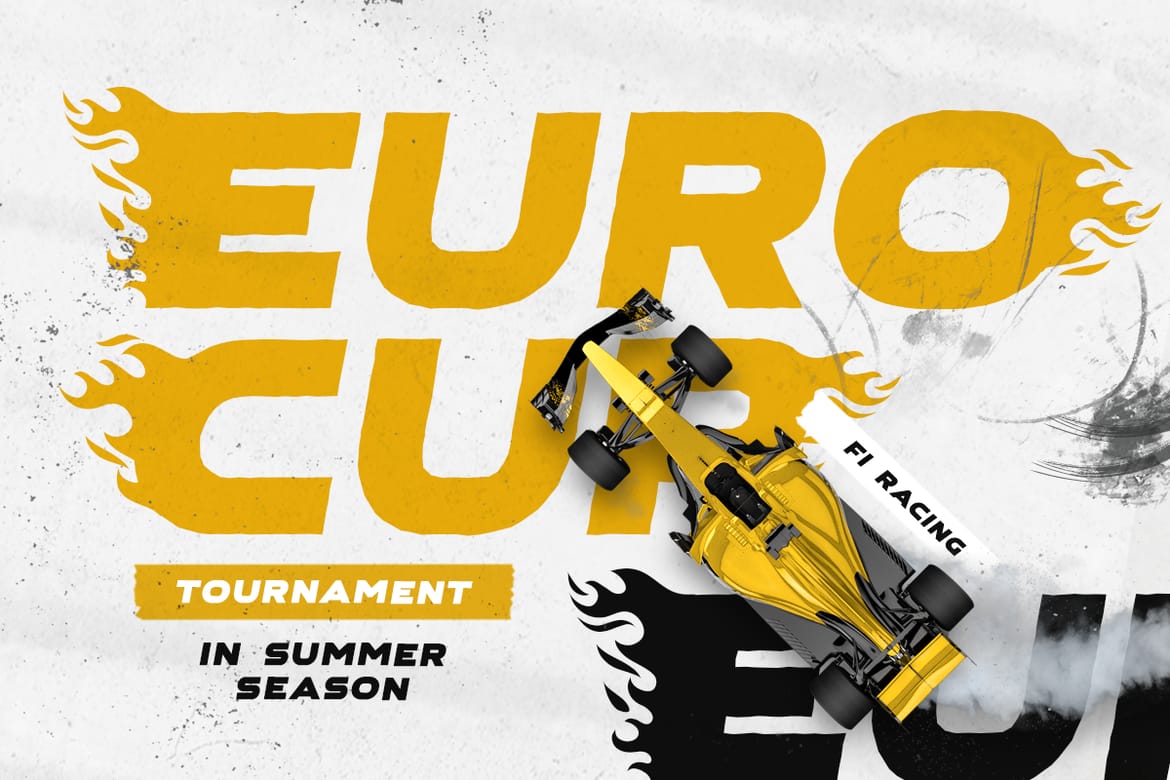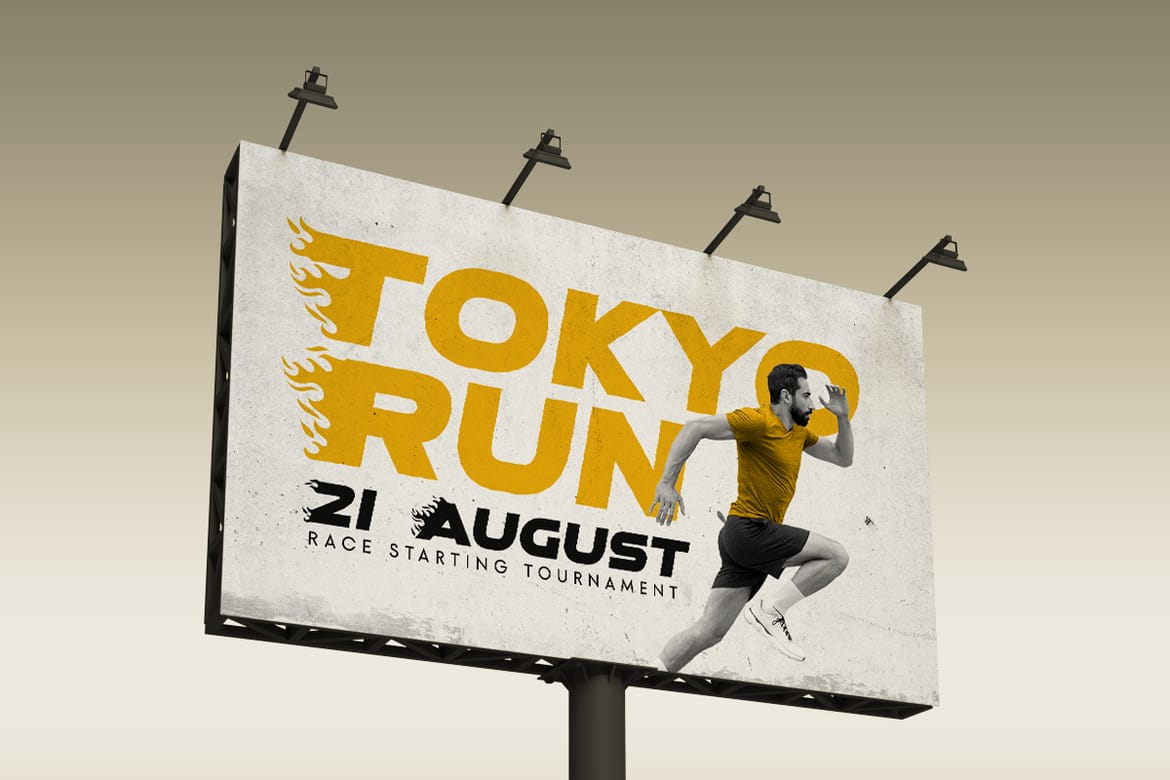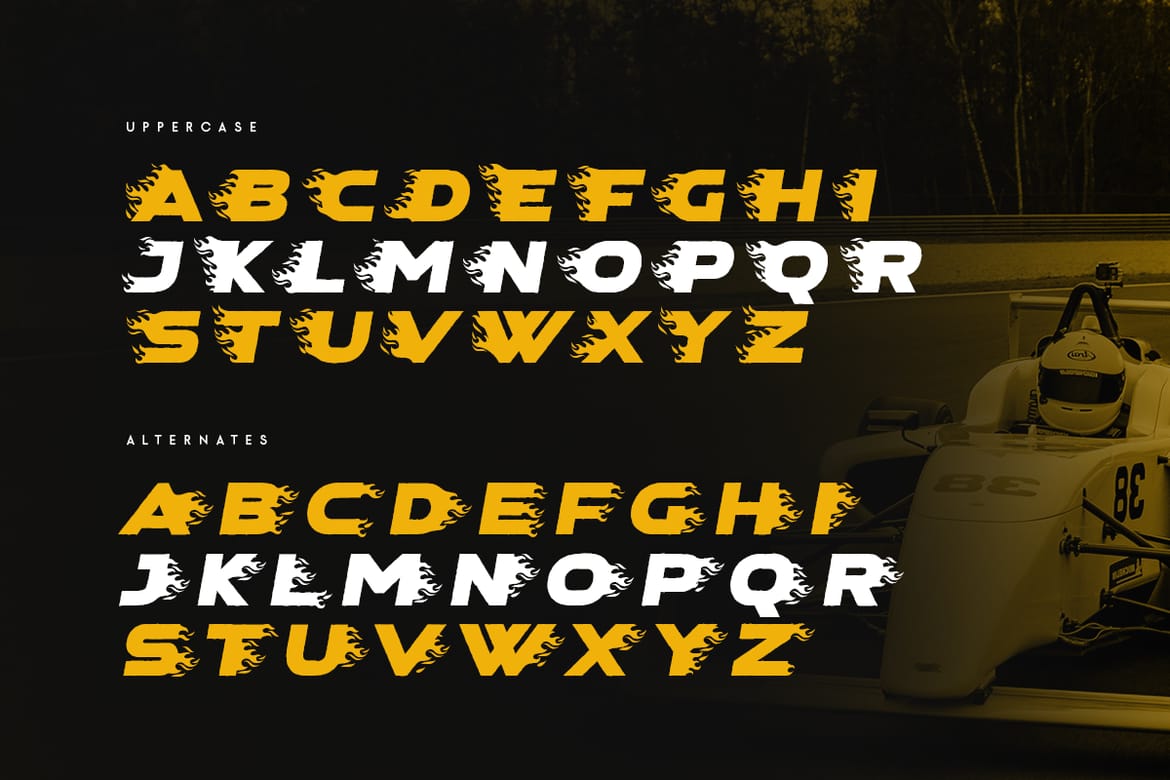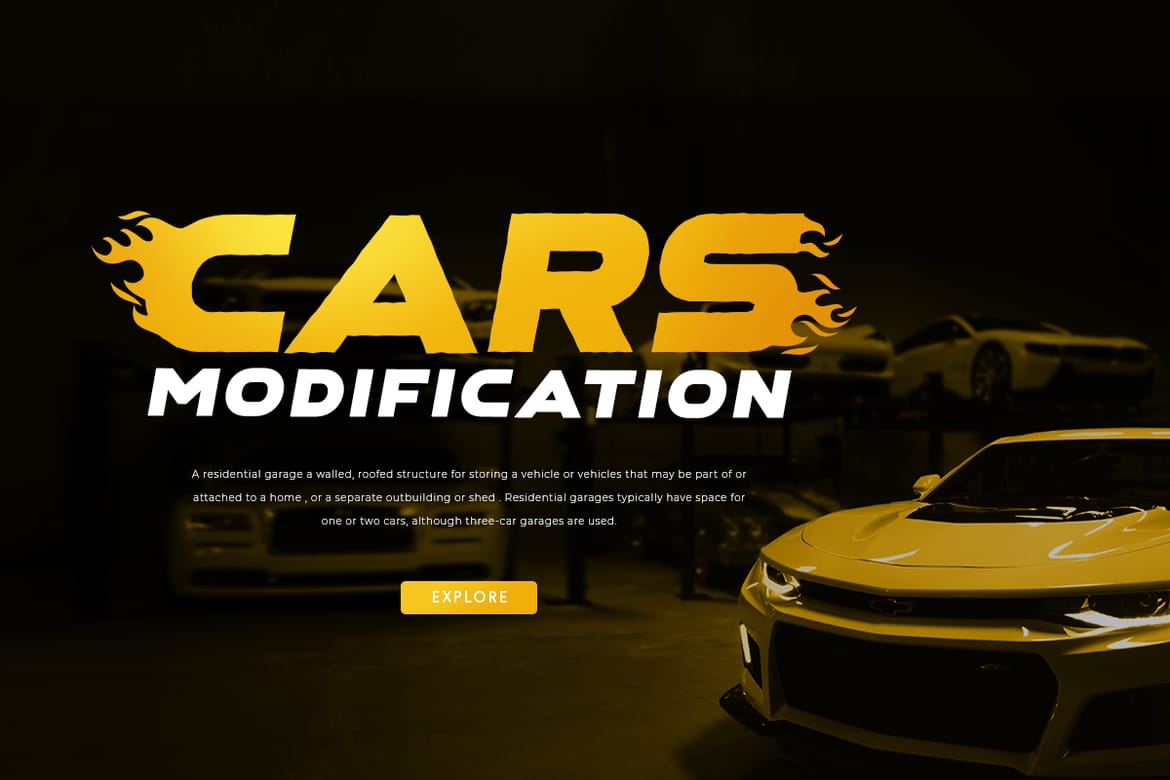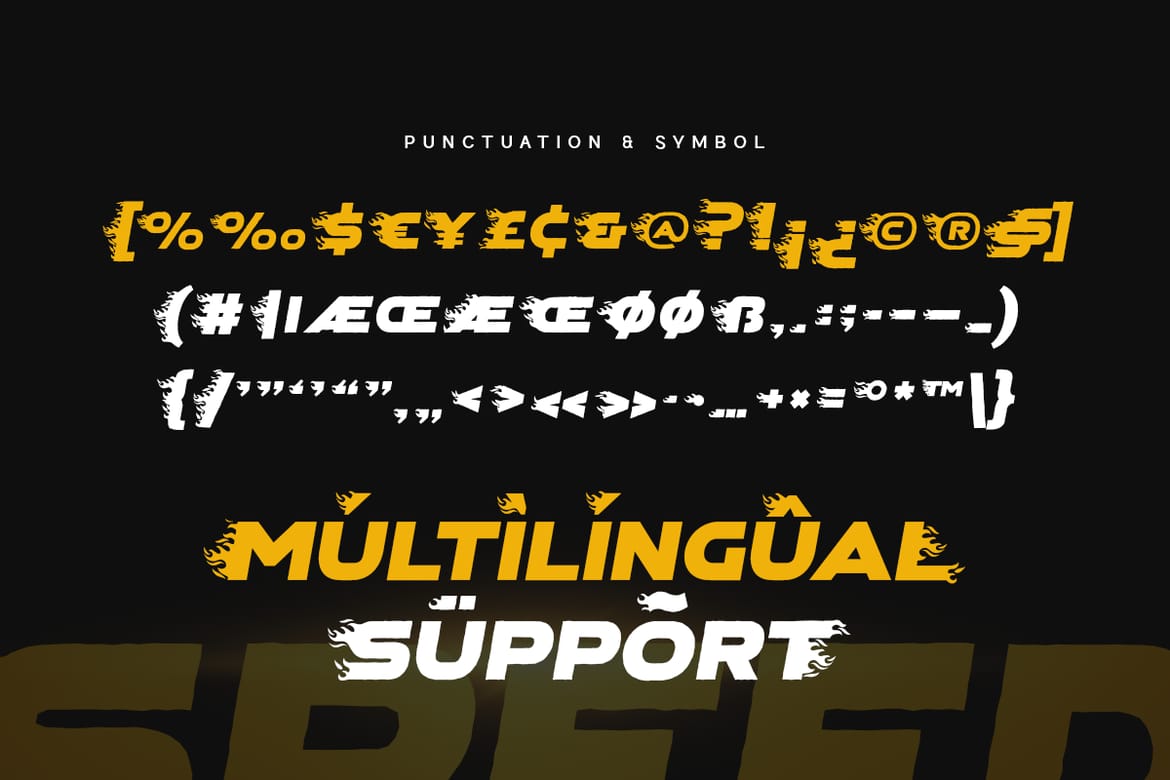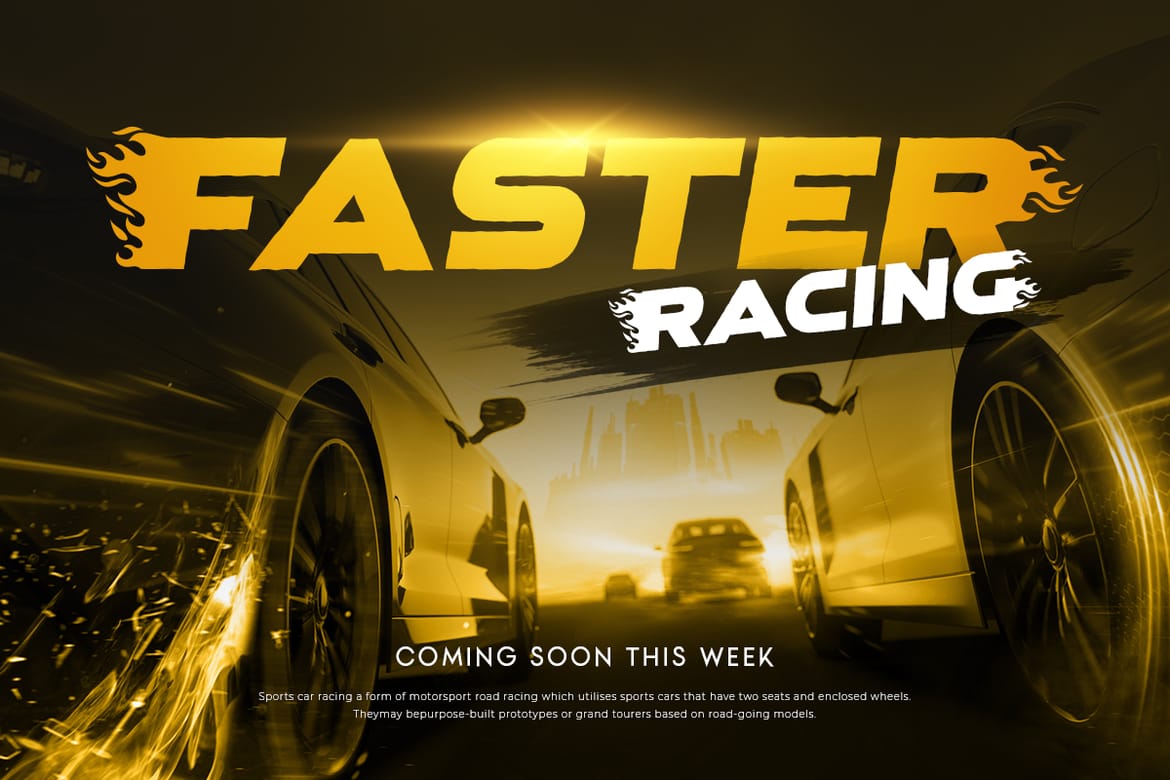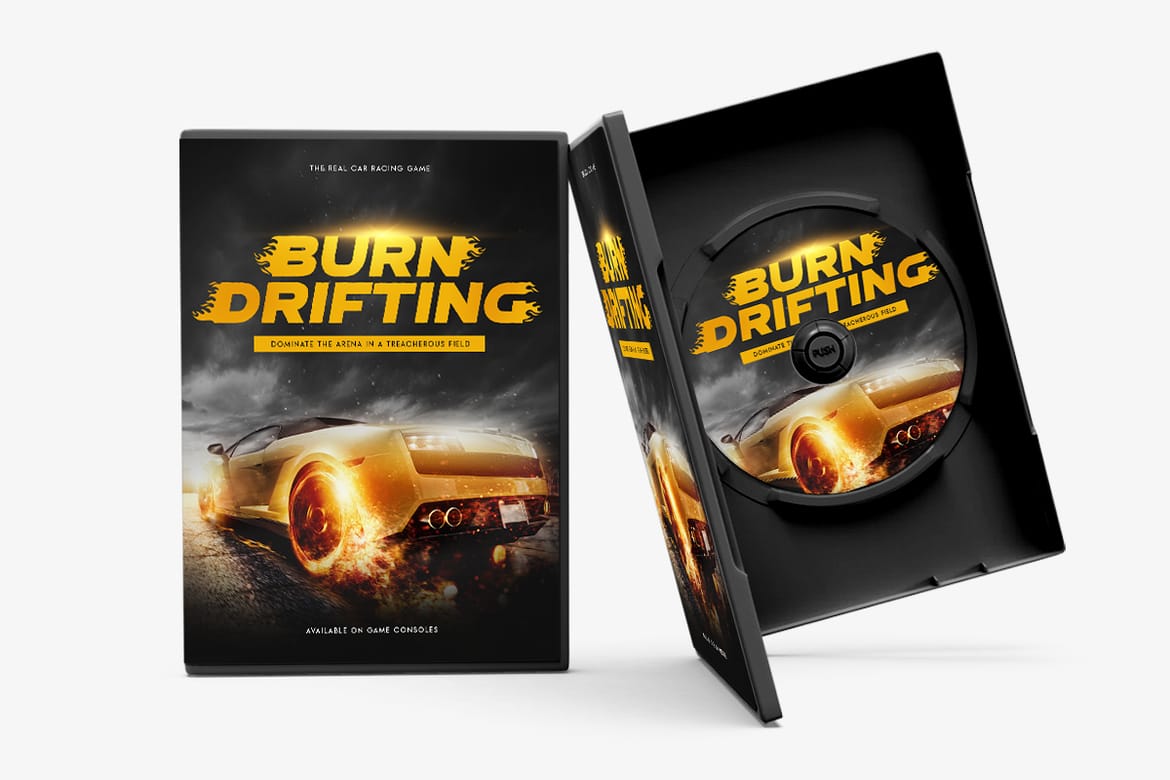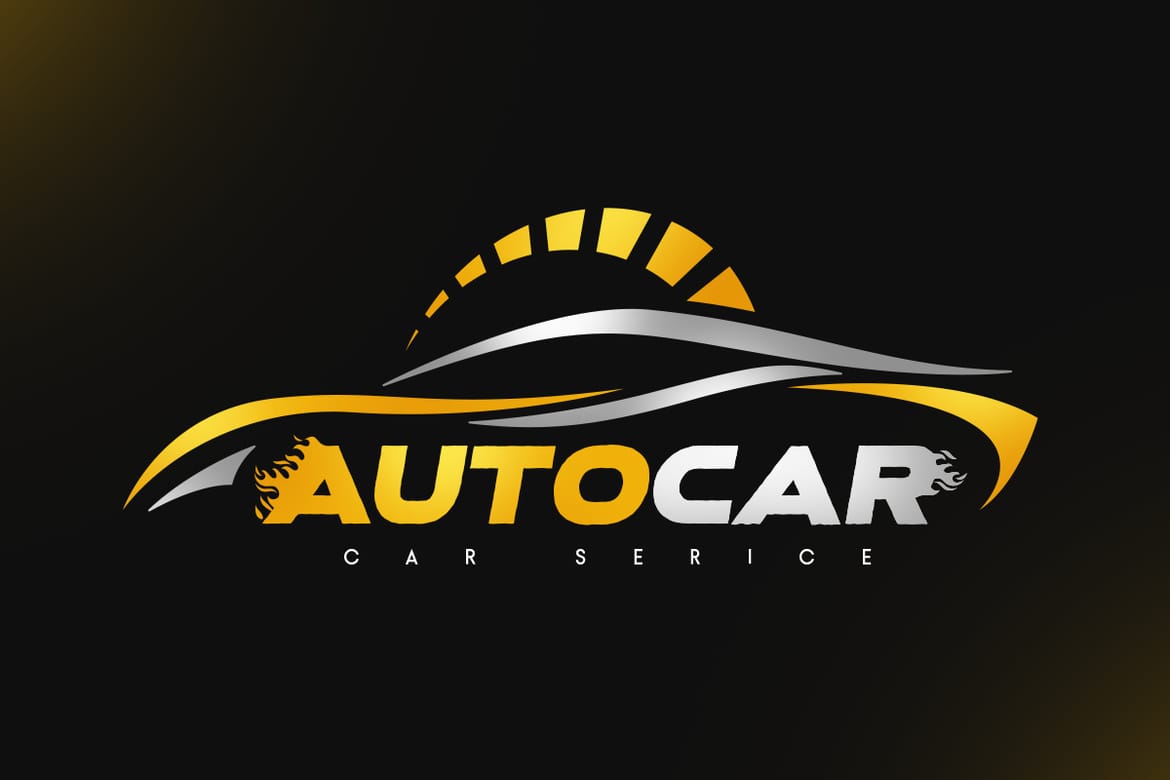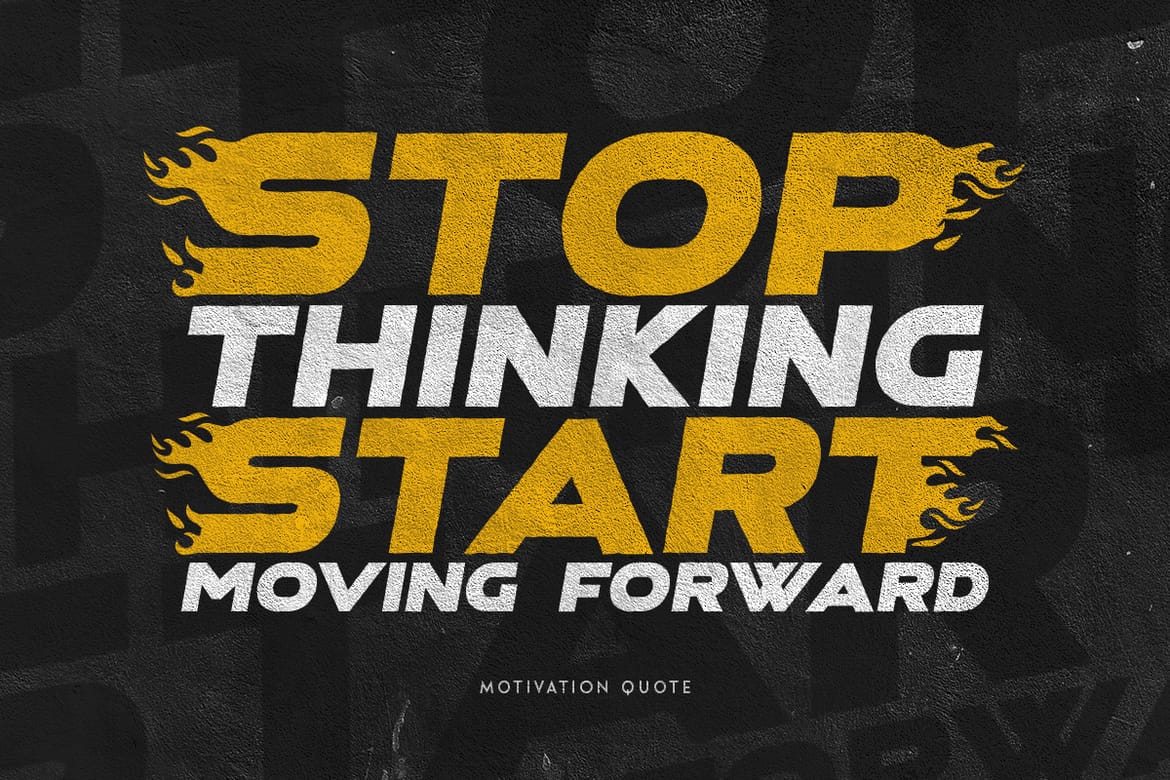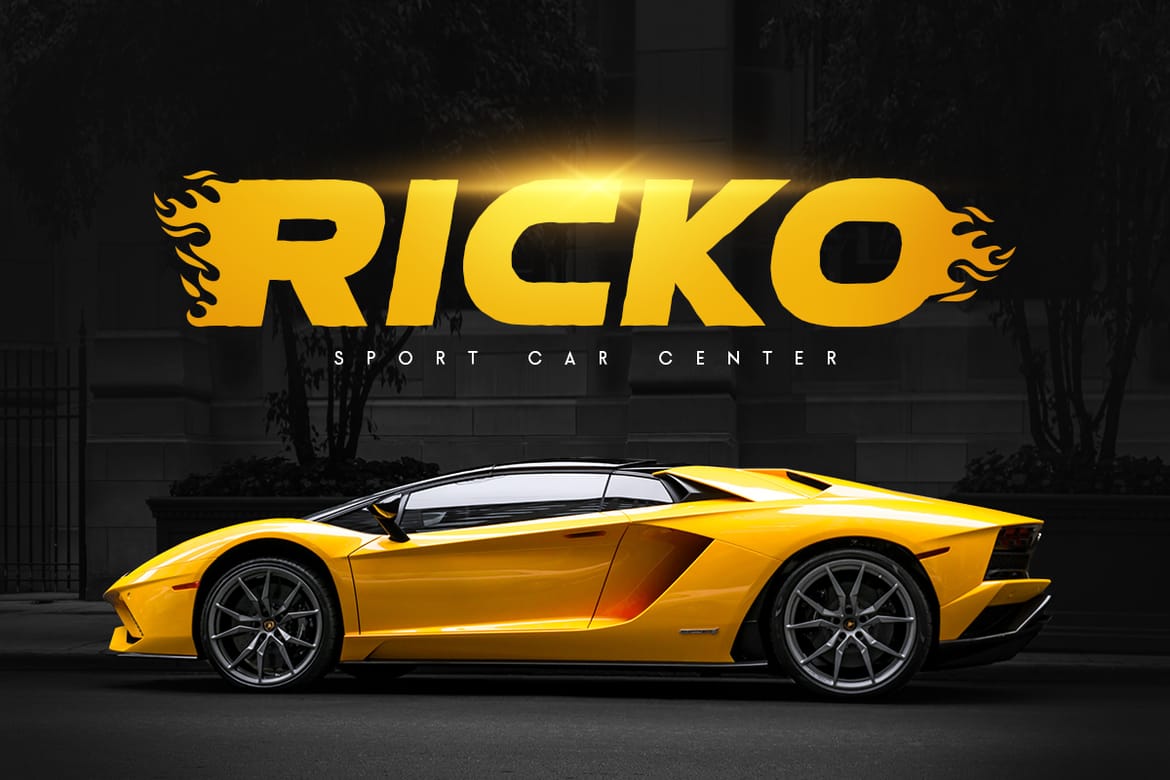
Speed - Futuristic Modern Sport Font
Speed Futuristic Modern Sport Font is a Modern Logo Racing Font that Modern, Racing and unique characters are ready for Sport event, that you can combine to get any variations and unique shapes easily just in seconds with great characters. It is a Sans Serif Bold font that perfect for sport branding projects, jersey, logo, wedding designs, social media posts, advertisements, product packaging, product designs, label, watermark, and any projects, it makes with a high level of legibility. What's Included: Speed font (OTF/TTF/WOFF/WOFF2) Character set A-Z All Uppercase Numerals & Punctuation Accented Characters (West Europe) Works on PC & Mac Recommended using Adobe Illustrator or Adobe Photoshop.
• Futuristic bold sport display font
• All uppercase with accented characters